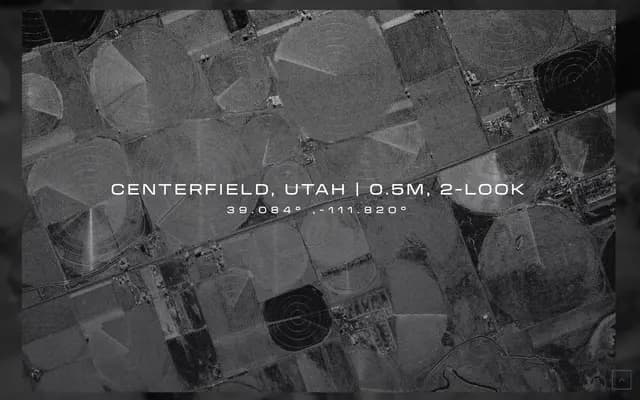
Transducer
A squarish sans-serif drawn from the aesthetic of analogue electronics, with subtly tapered vertical stems and a high x-height designed for interface and diagram legibility.
Spanning three widths and five weights with obliques throughout, Transducer takes the geometric sans conventions of electronics labelling and introduces deliberate imperfections: vertical strokes taper almost imperceptibly towards their centres, recalling the hand-soldered character of vintage equipment. The high x-height maximises counter space for quick reading at small sizes, and alternate characters for Y, r and t give extra flexibility in tight settings. A rich symbol set drawn to capital height makes it well suited to UI work, and the family has seen use by McLaren Racing, Major League Baseball and others.
A squarish, high x-height sans-serif drawing on the modernist geometric tradition of electronics-industry typefaces such as Microgramma, but with deliberate humanist departures including subtly tapered vertical strokes and differentiated letterforms.